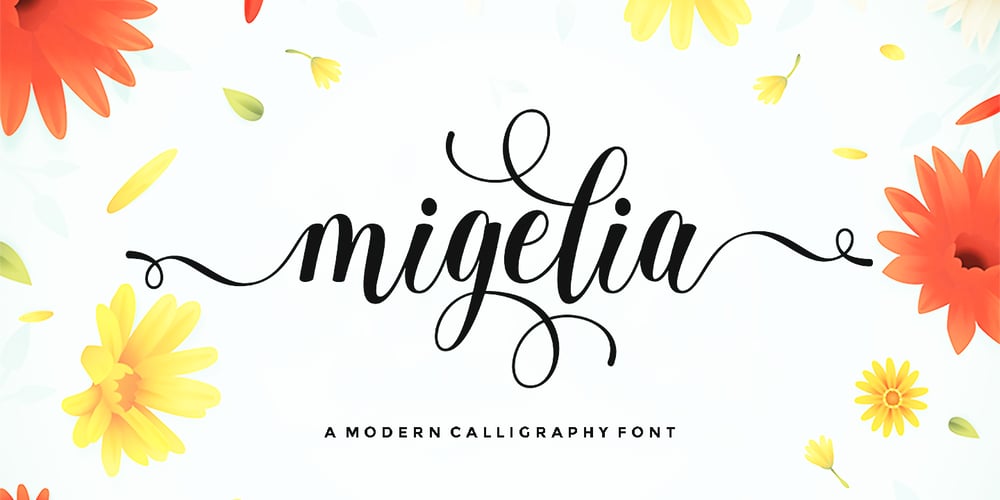
Migelia Font Family was designed by Romi Rahmadi and published by Romie Creative. Migelia contains 1 styles and family package options. Migelia is a beautiful script font with perfect alternatives. This font will add a romantic and elegant feeling to your design.Migelia can be used for various applications, such as wedding designs, logos, invitations, posters, social media posts, and others. Additional characters are coded by PUA with a love accent Can be used in any software, such as Adobe Photoshop, Illustrator, Microsoft Word, PowerPoint, and others. Multilingual glyphs.